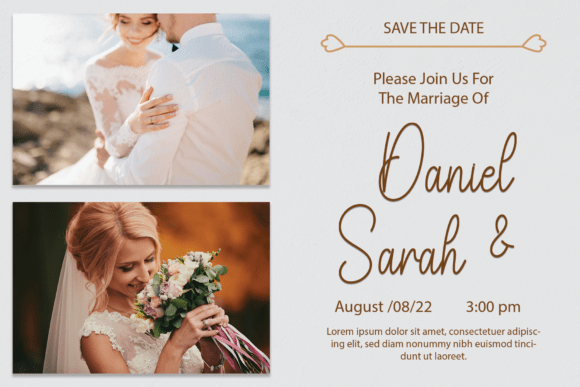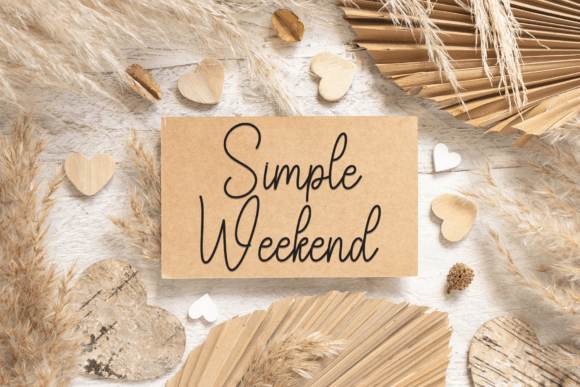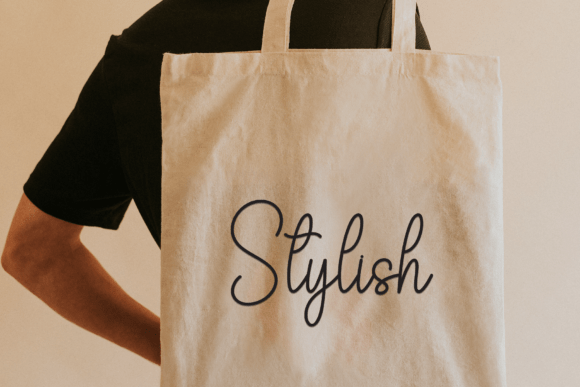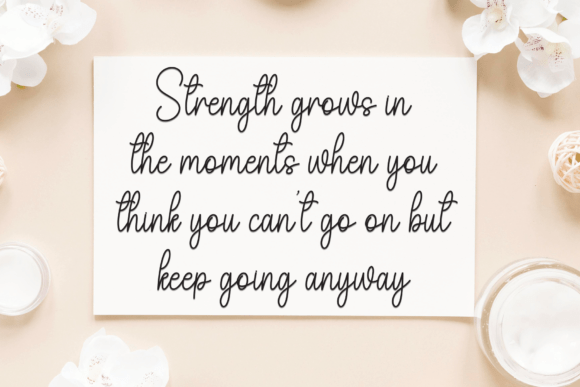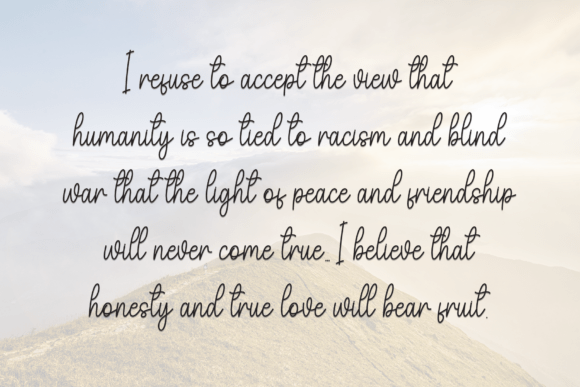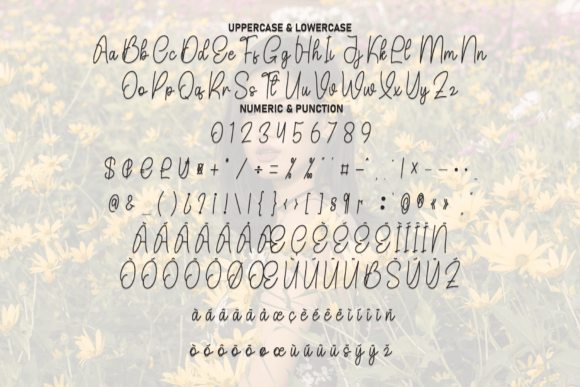
Introducing Beautiful Font: Elevate Your Designs with Whimsical Charm
Immerse yourself in a realm of whimsical design with our handcrafted display font, Beautiful Font. This distinctive typeface is designed to inject character into your wedding invitations, elevate the charm of your greeting cards, and imbibe any creation with a resounding touch of happiness. Its captivating aesthetic allure forges an exclusive pathway to animate your artistic visions.
The Art of Whimsy: A Font Like No Other
Beautiful Font is more than just a typeface – it’s an experience. Each letter is carefully crafted to weave its own narrative, transforming ordinary text into an exquisite tapestry of art. With its irresistible fusion of allure and spontaneity, this font is sure to captivate your audience and leave a lasting impression.
Whether you’re a designer, crafter, or DIY enthusiast, Beautiful Font is the perfect addition to your creative arsenal. Its unique and captivating aesthetic makes it ideal for a variety of projects, including:
- Artistic projects and mixed media collages
What Sets Beautiful Font Apart
So, what makes Beautiful Font so special? Here are just a few features that set it apart:
- Handcrafted with love and attention to detail
- Unique and whimsical design that’s sure to stand out
Tips for Using Beautiful Font
To get the most out of Beautiful Font, here are a few tips to keep in mind:
- Mix and match with other fonts to create a unique and eye-catching combination
- Use it sparingly to add a touch of whimsy to your design
Why Choose Beautiful Font?
When it comes to choosing a font for your next project, there are many options to consider. So, why choose Beautiful Font? Here are just a few reasons:
- It’s a unique and eye-catching way to add personality to your design
- It’s versatile and can be used for a range of projects and applications
Get Ready to Fall in Love with Beautiful Font